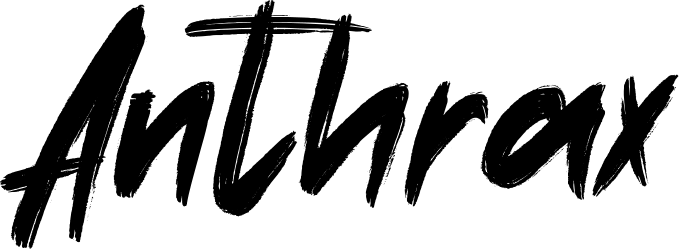
Anthrax Font
Anthrax is a brush font that gives off natural, organic vibes. It’s brisk and casual, therefore, makes a perfect choice for those who want their brand to look informal and steer clear of formalities.
Anthrax comes without the numbers and punctuation symbols but it contains both the uppercase and lowercase letters. Feel free to use it in advertising campaigns, posters, branding, and product packaging!